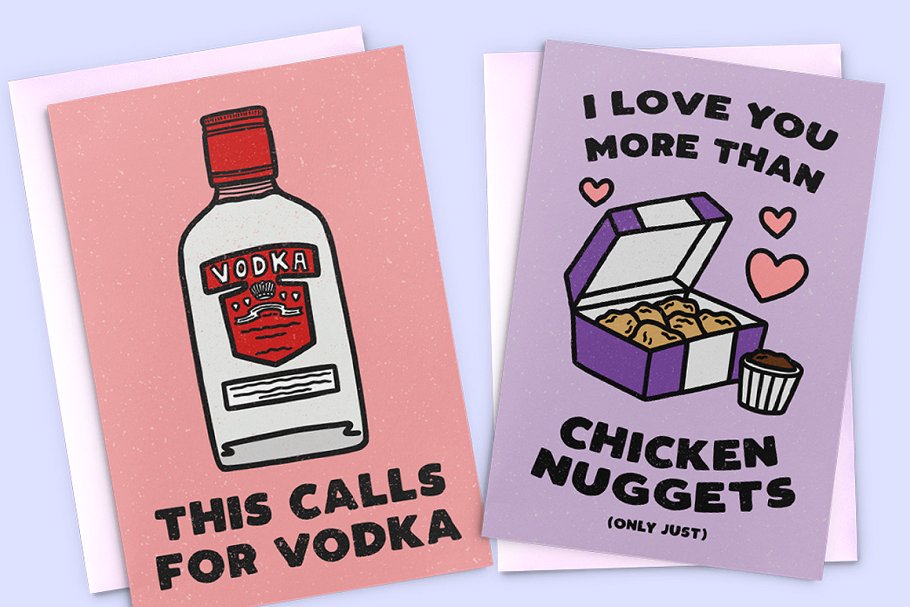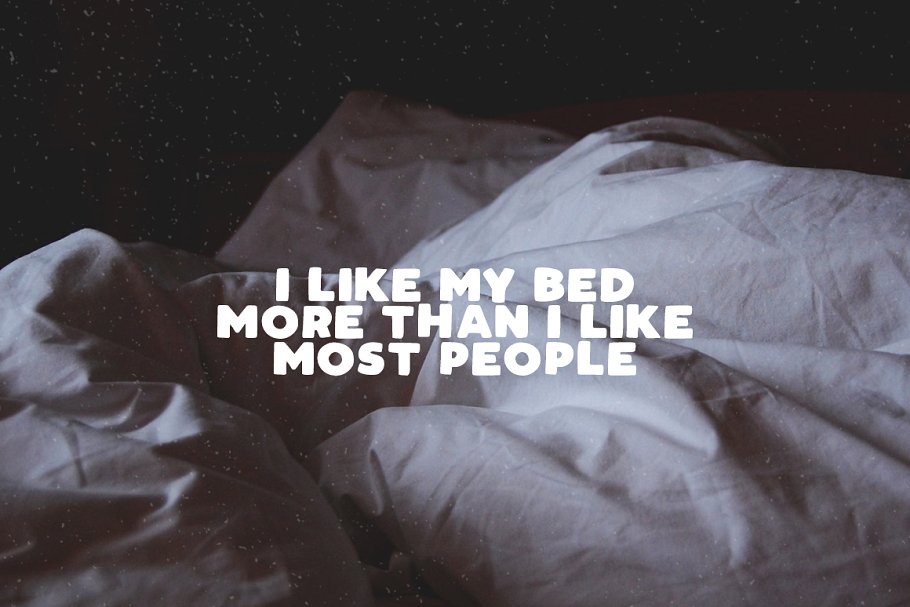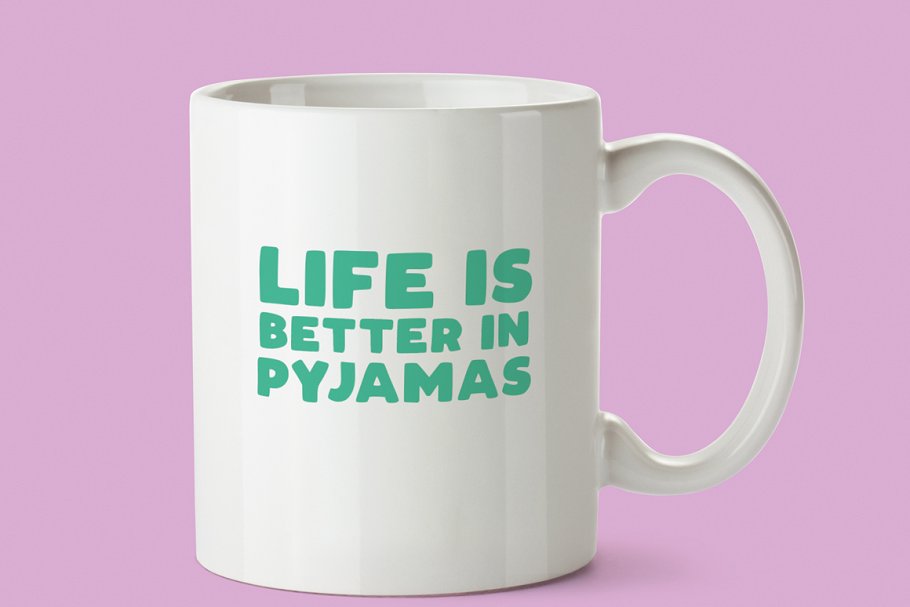
Watermelon Bold Font
Watermelon Font– It’s smooth, it’s cute, it’s fun, and it’s mighty tasty. A mixed-case font with lots of combination possibilities. This is a premium font, are sold on creativemarket, but it was great, it is free today for download. Watermelon Bold Font is a chunky bold typeface perfect for any fun quirky design work! This font can be used for anything such as t-shirt designs, phone cases, greeting cards, invitations, mugs and so much more! Get creative!